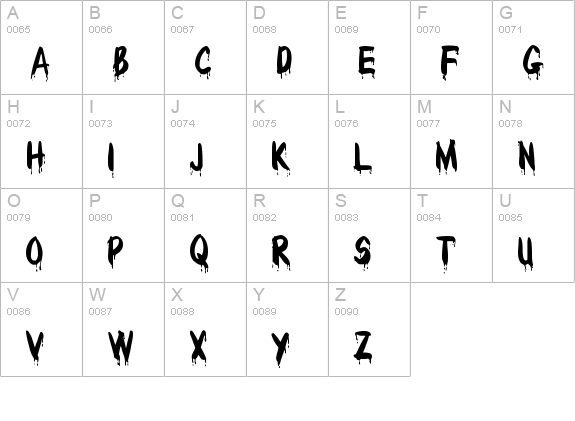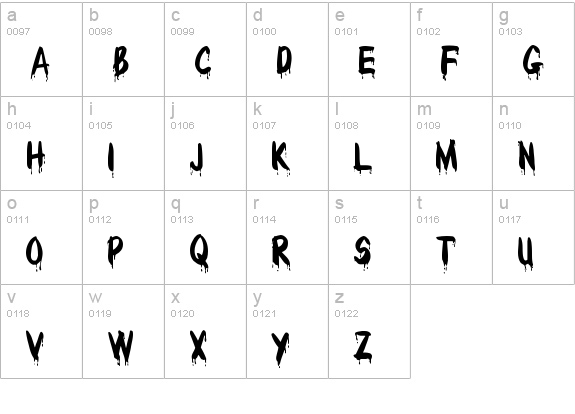
Wet Paint MF font is a captivating and expressive typeface that exudes a sense of creativity and playfulness. Its unique design features brush strokes that give it a hand-painted appearance, adding a touch of artistic flair to any project. The irregular edges and bold strokes of Wet Paint MF font make it stand out and grab attention, making it perfect for headlines, posters, and other design projects where you want to make a statement. What makes Wet Paint MF font even more appealing is that it is available for free download at FontsMarket.com. This means that you can easily access this eye-catching font and use it in your designs without any cost. Whether you're a designer looking to add a touch of whimsy to your creations or a hobbyist looking to play with different fonts, Wet Paint MF font is a fantastic choice that won't break the bank. Download it today and let your creativity run wild with this stunning typeface.